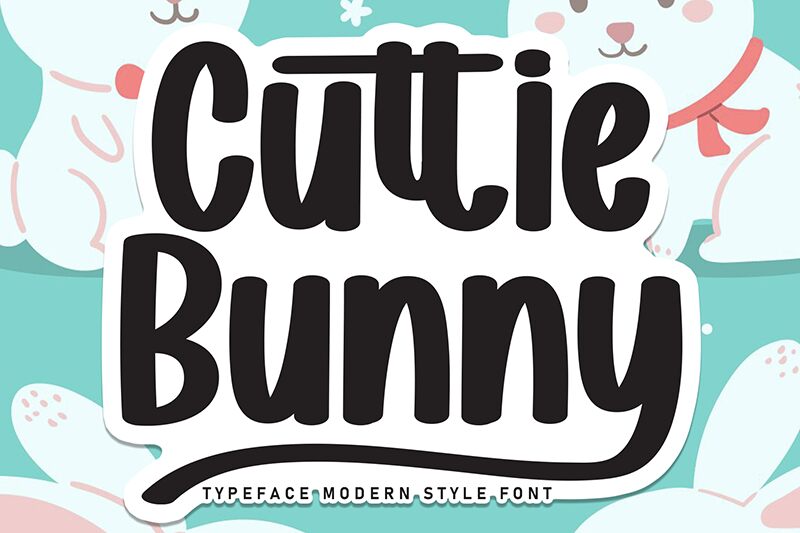
Cuttie Bunny
Cuttie Bunny font by Scratchones is a condensed handwritten typeface with a whimsical, friendly appearance. It features rounded shapes and retro influence, creating an overall inviting look. Versatile for modern branding projects, the font also adapts to fun concepts made for children’s products.